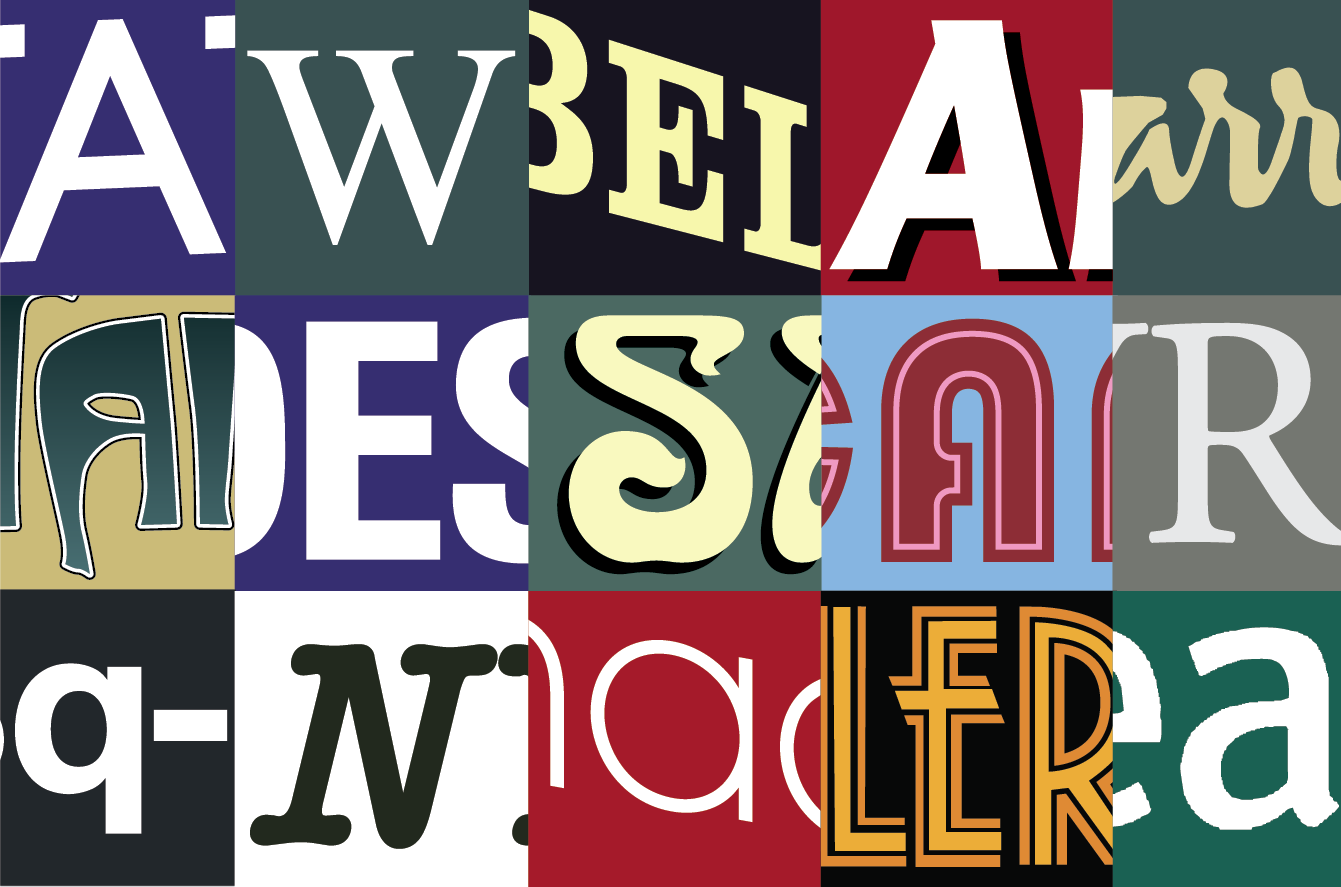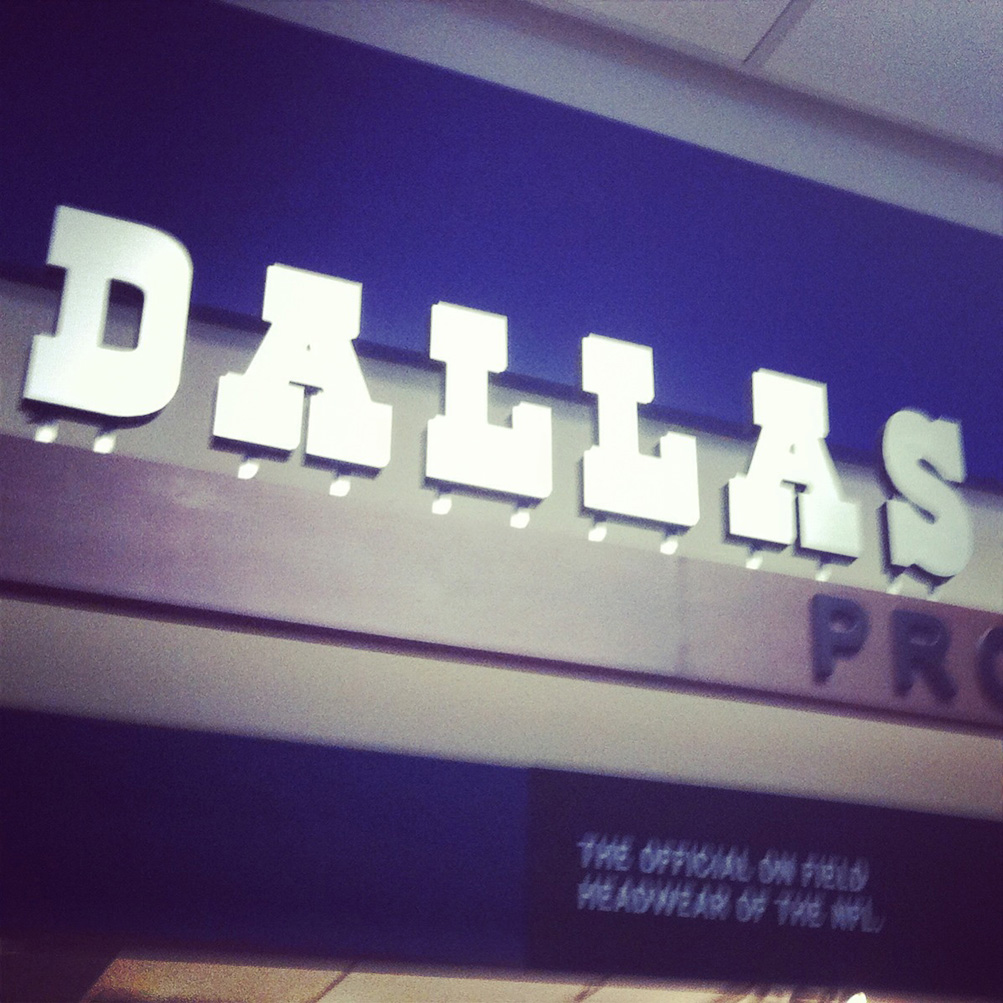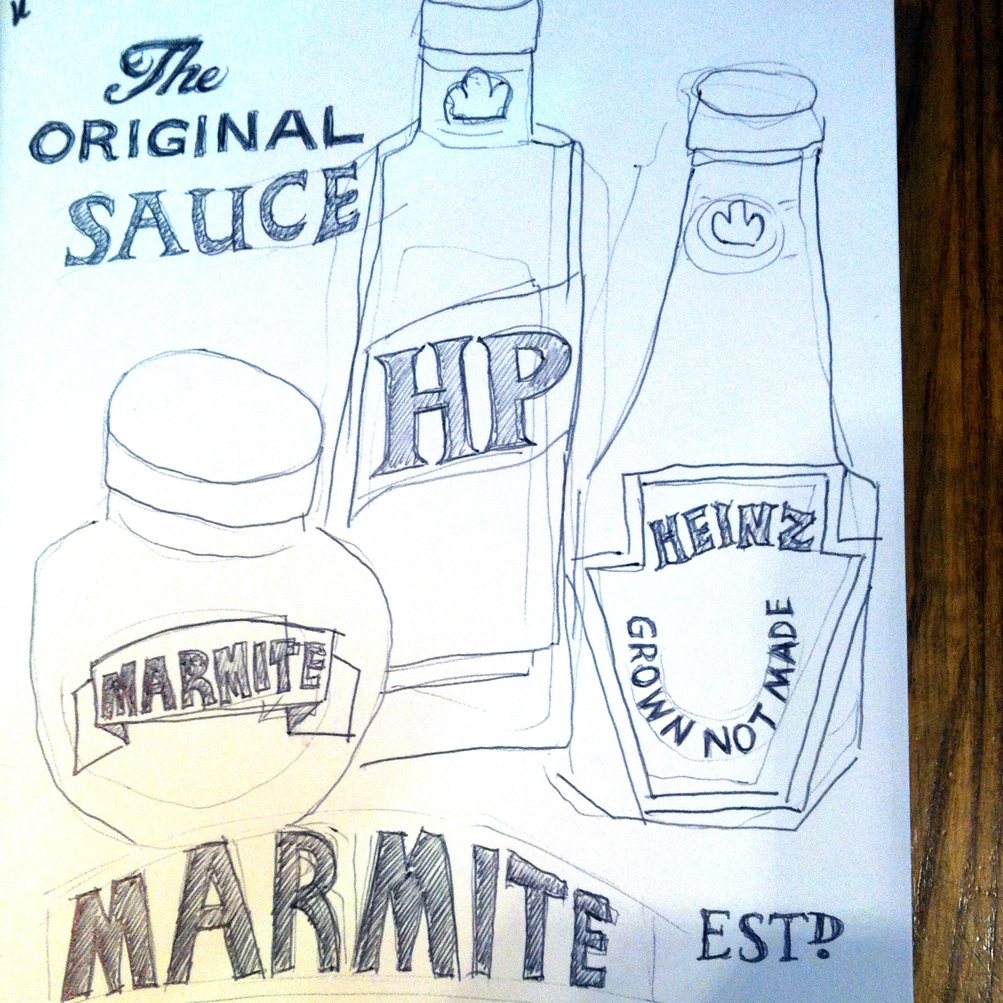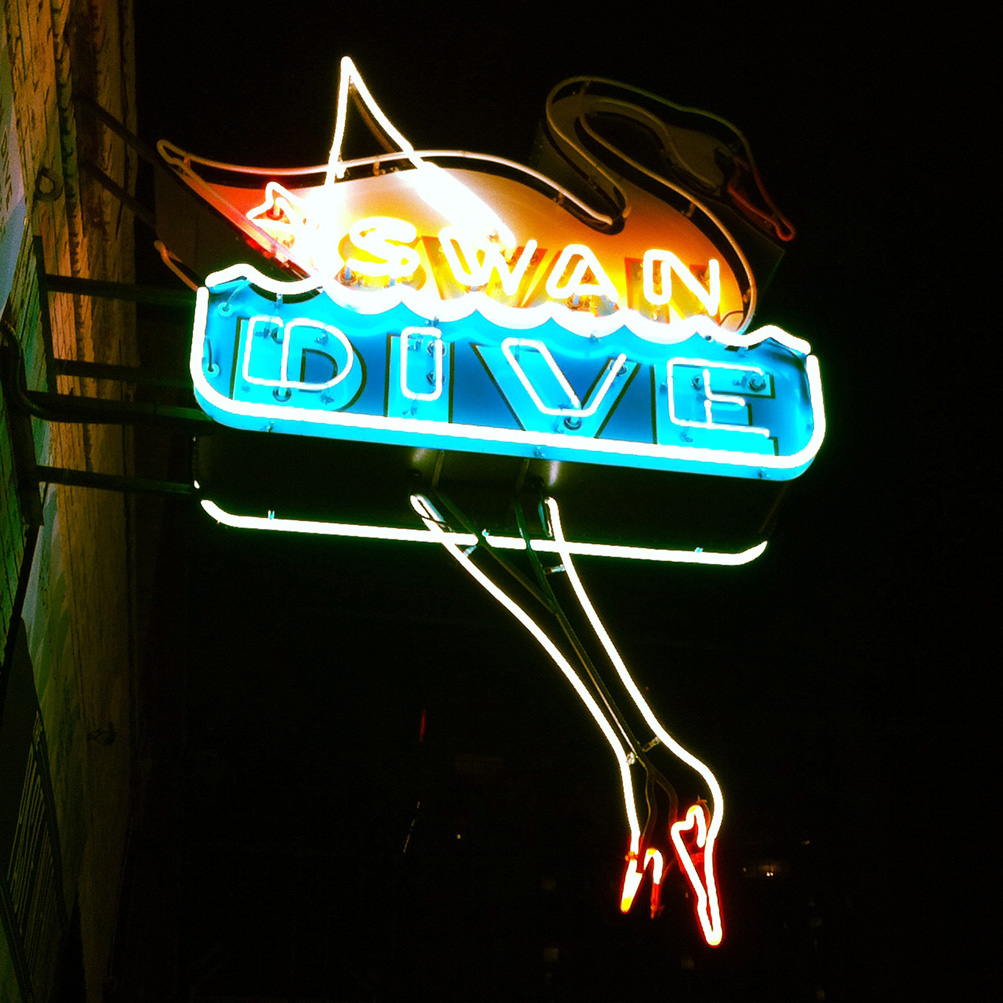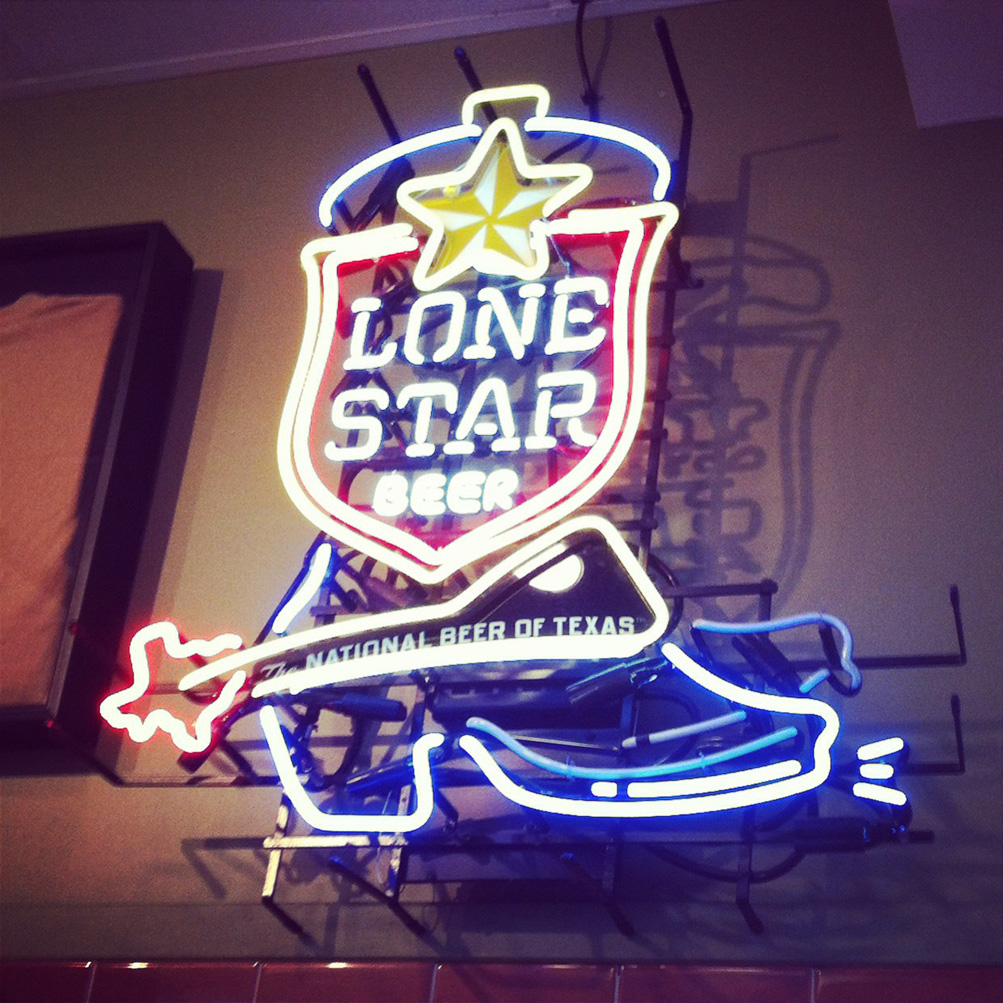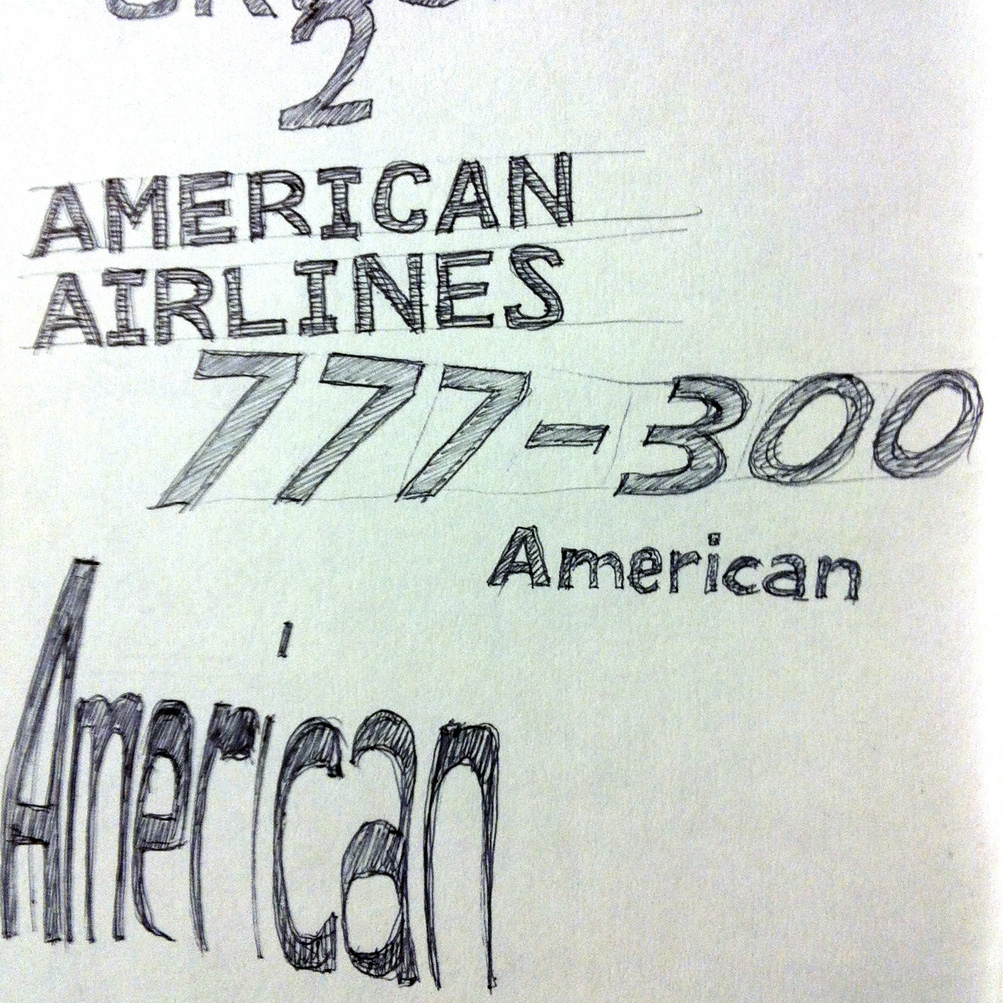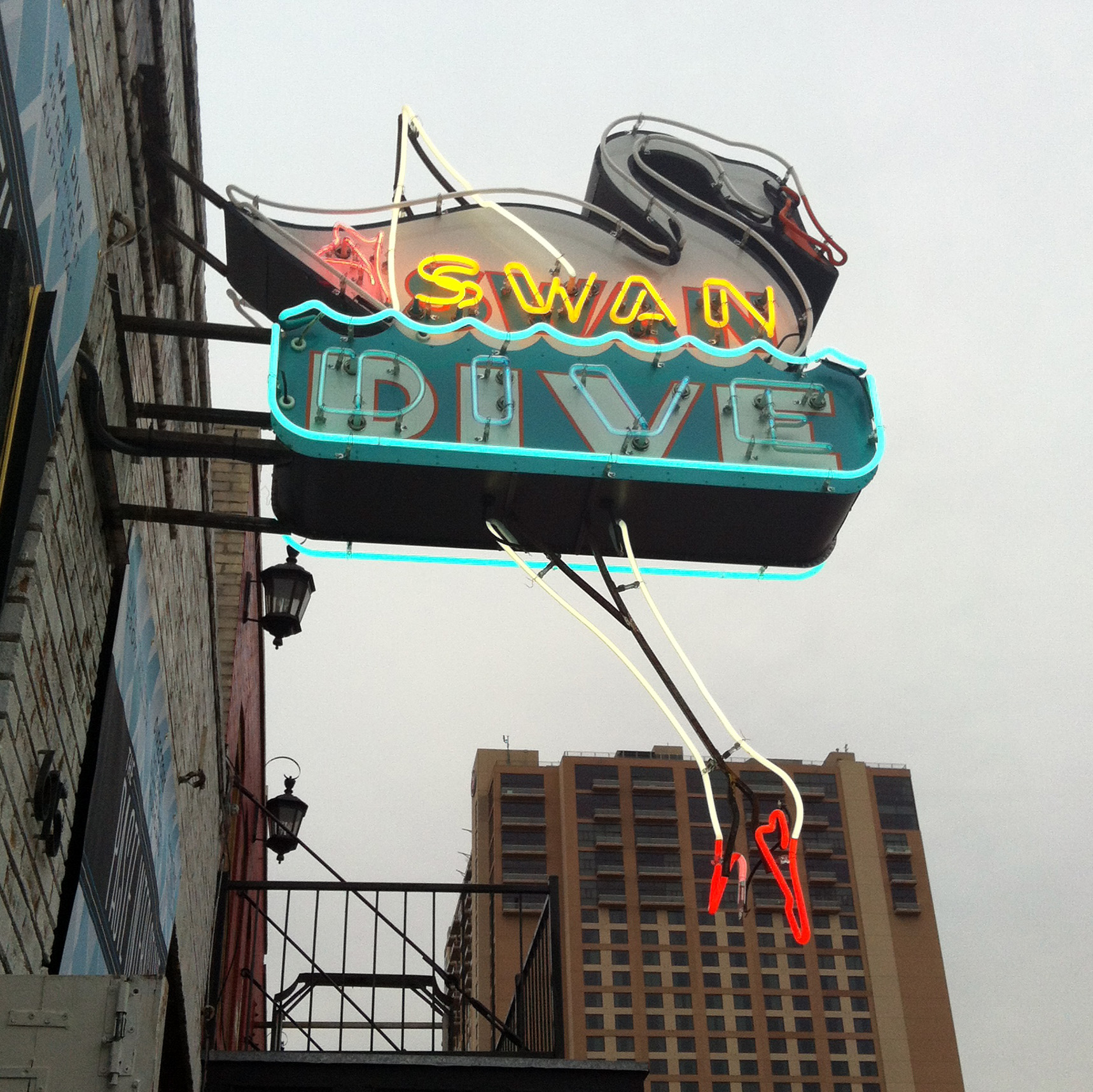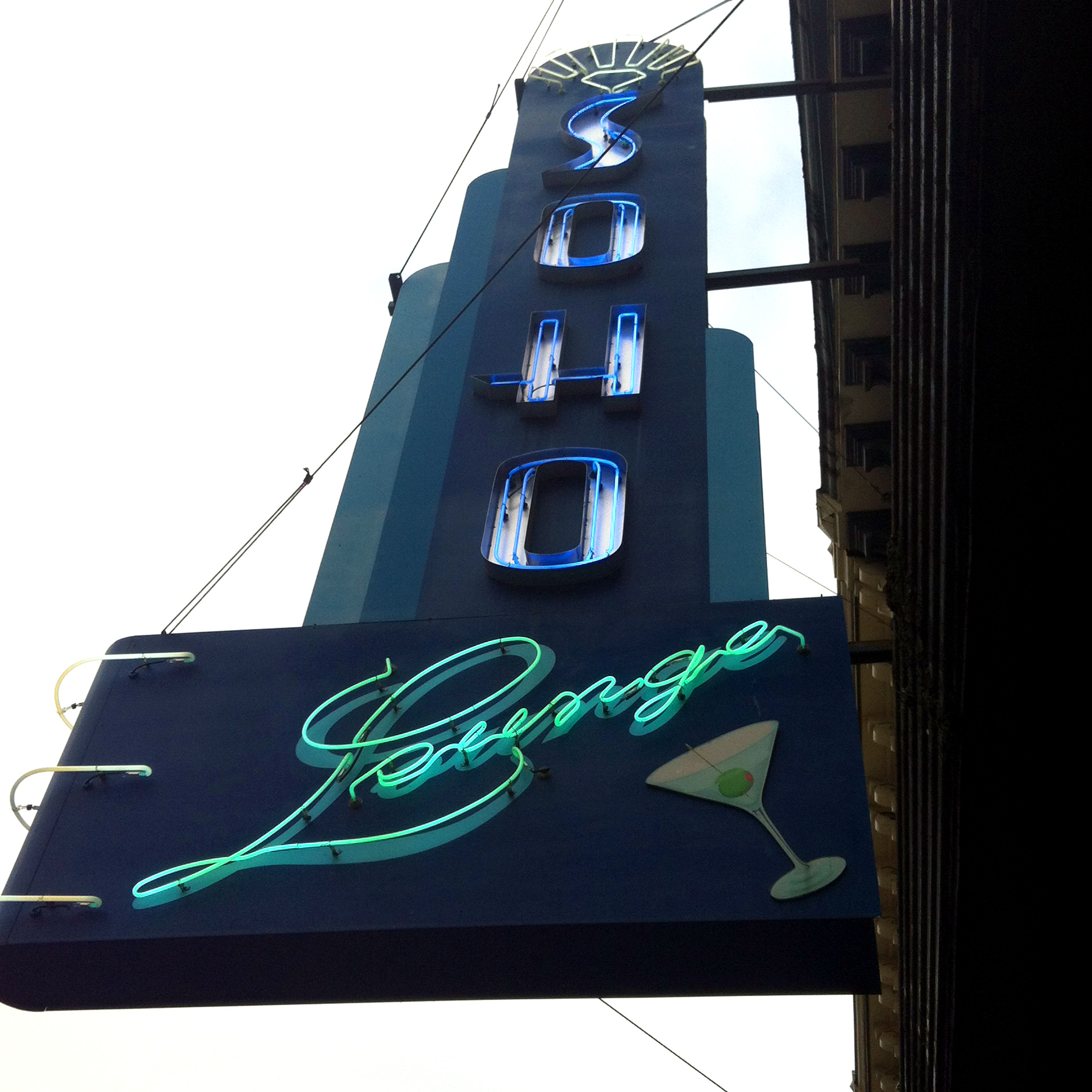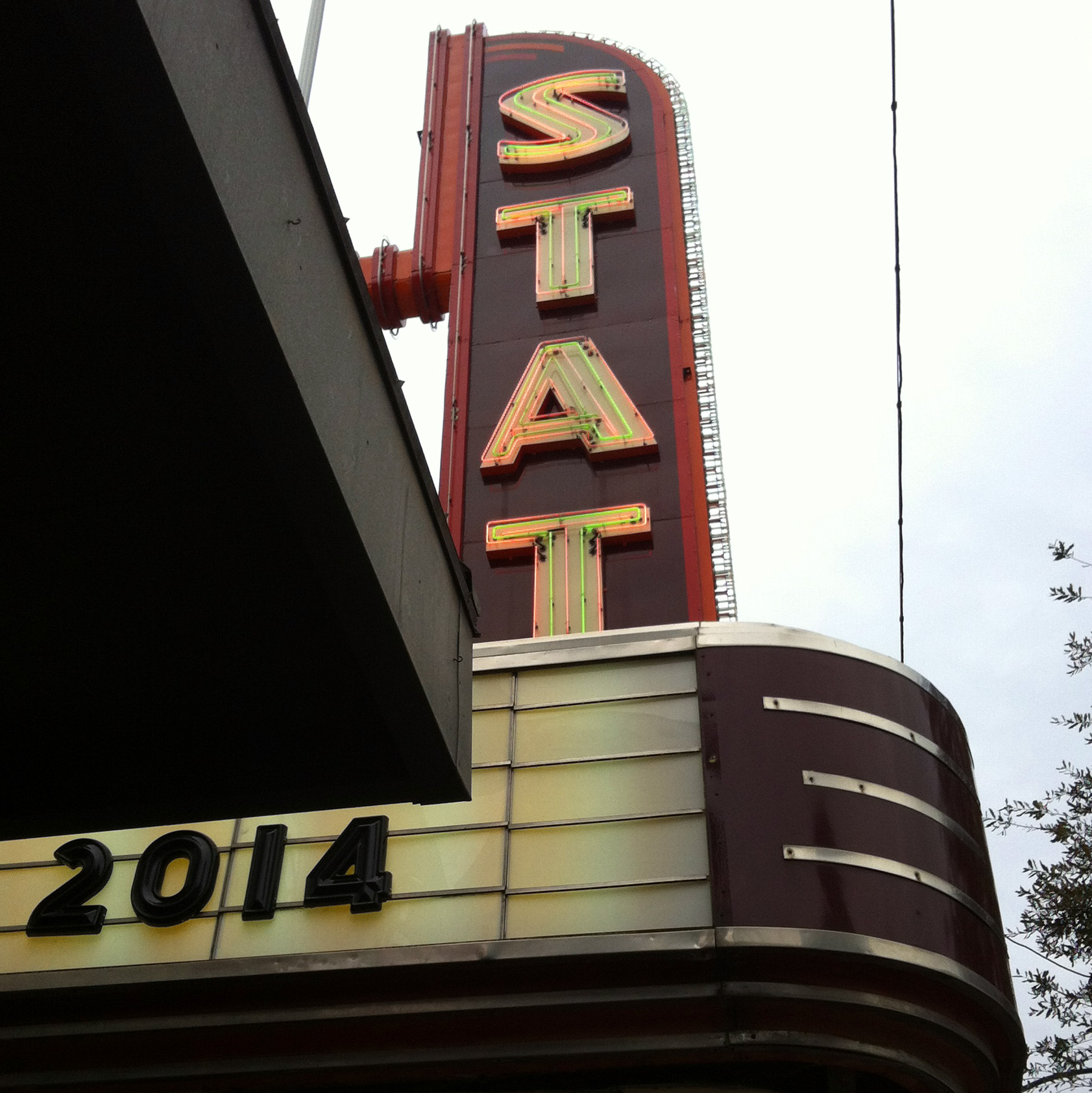
From London to Austin, a Creative Typography Invasion
Type Tasting Typography Workshop at SXSW
Type Tasting Global Lettering Typography Workshop at SXSW Austin, Texas
London based designer Sarah Hyndman is taking her Type Tasting venture to the US next week. She’s running a day long ‘Global Lettering Workshop’ at South by Southwest (SXSW) on Saturday March 8th.
A comparison of signage
Here are a selection of the research images for the Type Tasting workshop at SXSW. Above: geometric signs from Austin (USA), Delhi (India), London (UK), Brisbane (Australila). Below: Victorian style signs from Rome (Italy), Bangkok (Thailand), San Francisco (USA), Geneva (Switzerland).
Type Tasting global typography at SXSW
Type Tasting Global Lettering Workshop
SXSW Interactive, Austin, Texas
Saturday March 8th
“Get creative whilst exploring and reinterpreting the typography found in street signs and signage from around the world.” We’re expanding on the Dalston Reimagined idea from last summer and take it global. Are there patterns to be found on a larger scale, what does the signage reveal about an area, a city or a country when compared?
Type Tasting at SXSW, Austin, Texas
Type Tasting at SXSW, Austin, Texas
Saturday March 8th
Type Tasting drop in workshops in which participants get creative to reinterpret letters inspired by streetsigns and signage from around the world. The variation of signage styles reflect social and historical development of typography in each region and will enable us to build up a visual representation of global typography trends. Participants will each be provided with a simple template for a letter which they will customise using a range of markmaking and collage materials. The event will be eight hours long, but participants can drop in at any time.